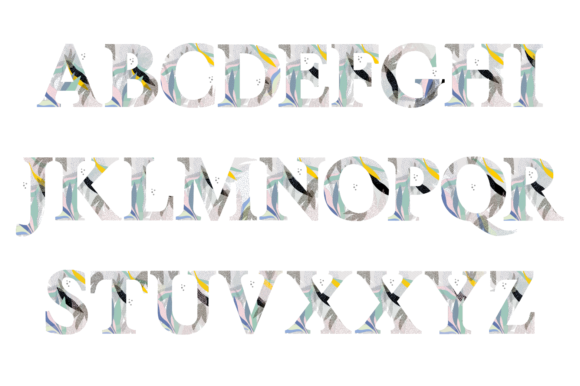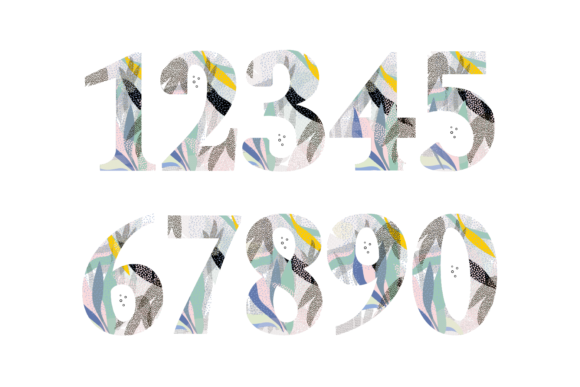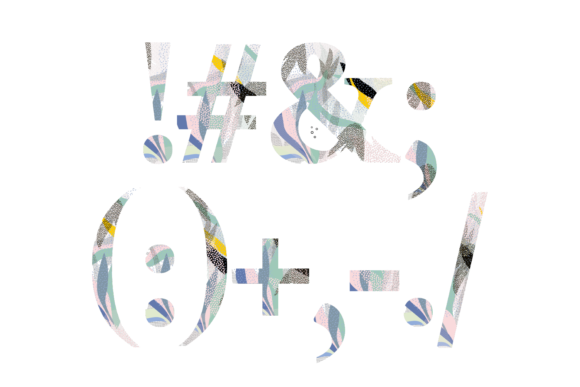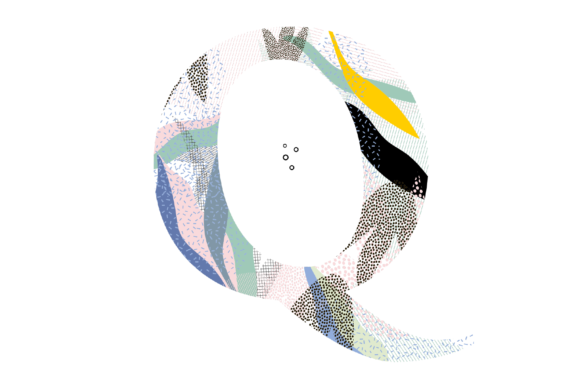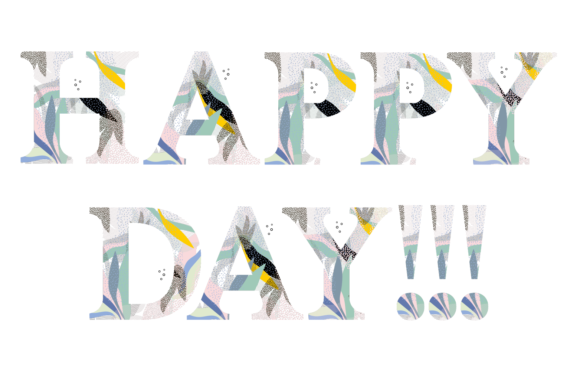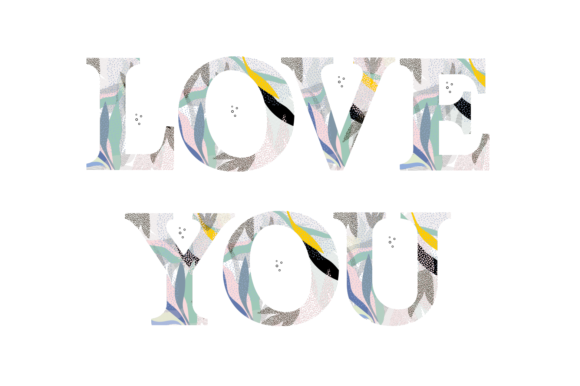
Introducing Flora Font: A Magical Display Font for Flower Lovers
Are you a designer or crafter looking for a unique and captivating font to add a touch of elegance and romance to your projects? Look no further than Flora Font, a stunning display font that celebrates the beauty of flowers. With its botanical style and organic feel, Flora Font is perfect for a wide range of design projects, from wedding invitations and stationery to packaging and branding.
What is Flora Font?
Flora Font is a magical display font that features a beautiful, hand-drawn botanical style, reminiscent of vintage flower illustrations. The font is designed to evoke the feeling of a lush garden, with intricate details and organic shapes that will add a touch of whimsy and romance to any design project. Whether you’re creating a wedding invitation, a product label, or a social media graphic, Flora Font is sure to make your design stand out.
Key Features of Flora Font
- Botanical style: Flora Font features a beautiful, hand-drawn botanical style that is perfect for designers and crafters who love flowers.
- Organic and romantic feel: The font’s organic shapes and intricate details give it a romantic and whimsical feel that’s perfect for a wide range of design projects.
Tips and Tricks for Getting the Most out of Flora Font
- Experiment with different colors: Flora Font is a color font, which means you can experiment with different colors and combinations to create a unique look.
- Use it for headings and titles: Flora Font is perfect for headings and titles, where its bold and elegant style can really shine.
- Pair it with other fonts: Flora Font can be paired with other fonts to create a unique and eye-catching design.
Flora Font is a magical display font that celebrates the beauty of flowers. With its botanical style and organic feel, it’s perfect for designers and crafters who want to add a touch of elegance and romance to their projects. Whether you’re creating a wedding invitation, a product label, or a social media graphic, Flora Font is sure to make your design stand out. So why wait? Download Flora Font today and start creating beautiful designs that will leave a lasting impression!